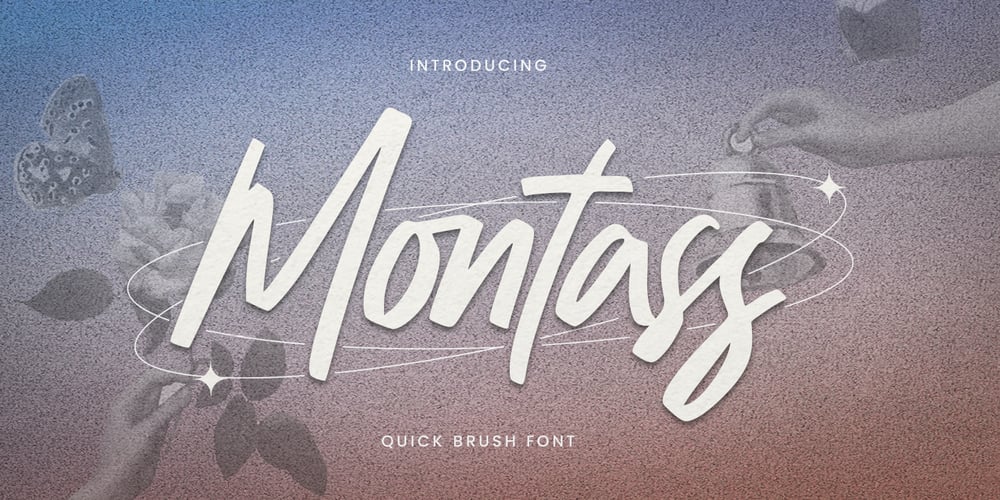
Montass Font Family was designed by Abdul Malik Wisnu, Anang Fibriyanto and published by Gassstype. Montass contains 1 styles and family package options. Hello Everyone, introduce our new product Font Montass This Is Quick Brush Font.This is a Textured Natural Style and classy style with a clear style and dramatic movement.You can activate 30 Ligatures and 18 Alternate glyphs OpenType panel.